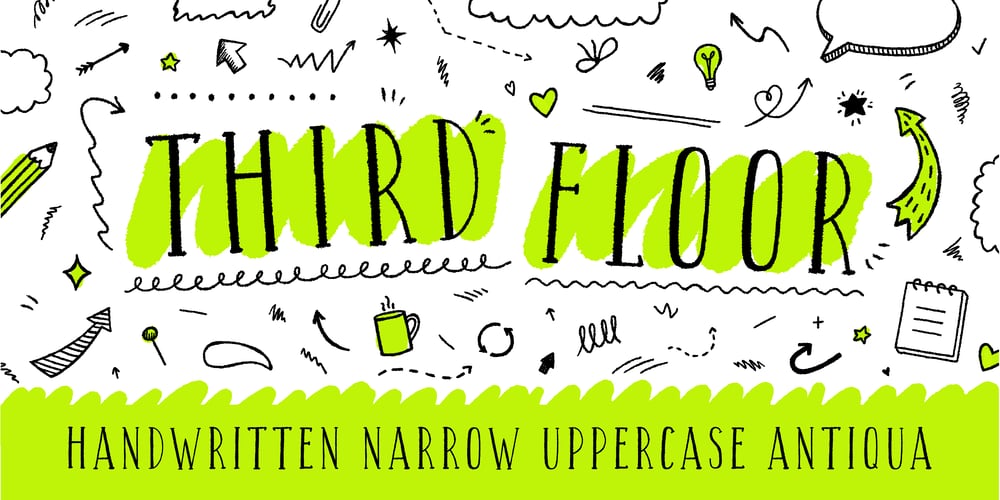
Third Floor MS Font Family was designed by Marina Sozonova and published by Redcollegiya. Third Floor MS contains 1 styles and family package options. Third Floor is a handwritten narrow uppercase font for grungy or funny children’s design. Great for bullet journal headlines, for book and planner covers. This typeface includes latin and cyrillic characters, numbers, punctuation and diacritical marks – 258 glyphs in total.